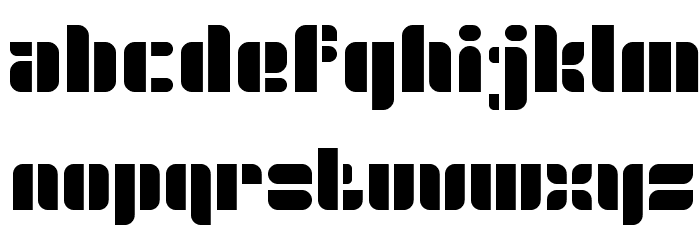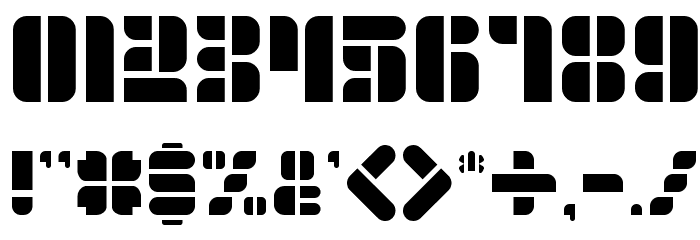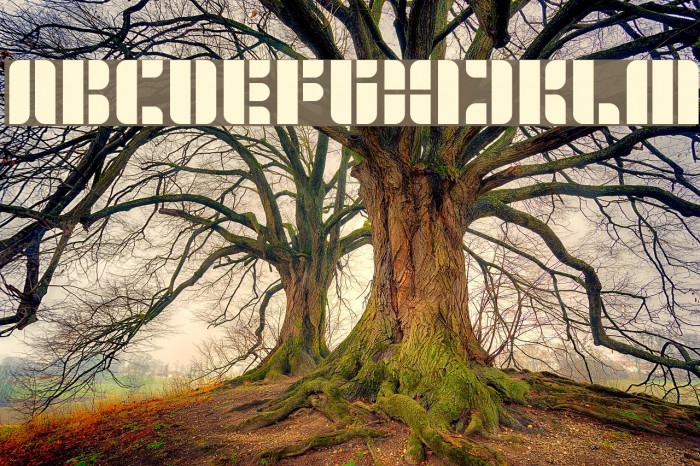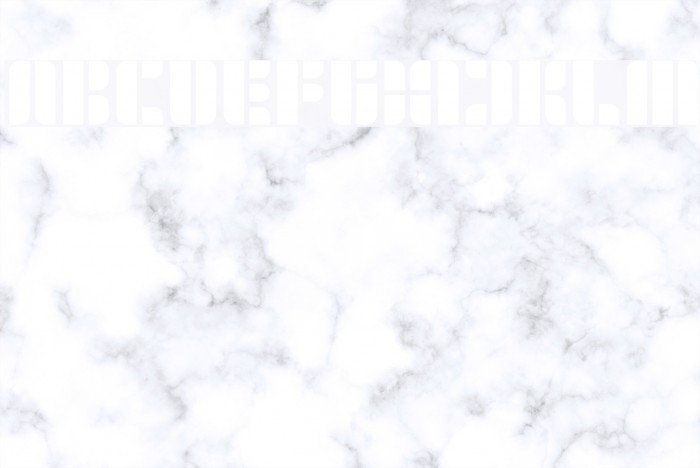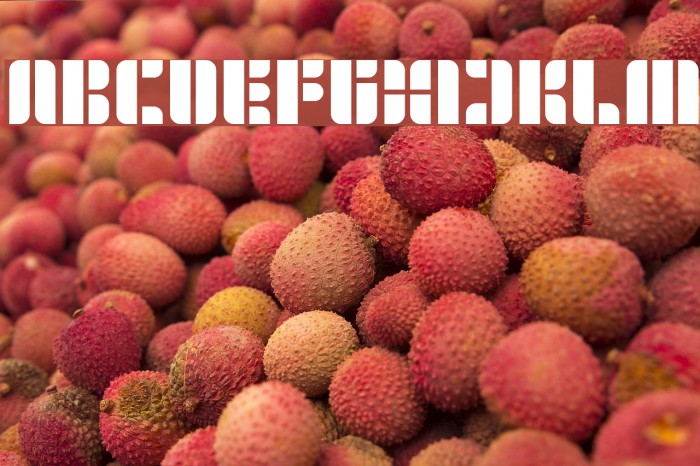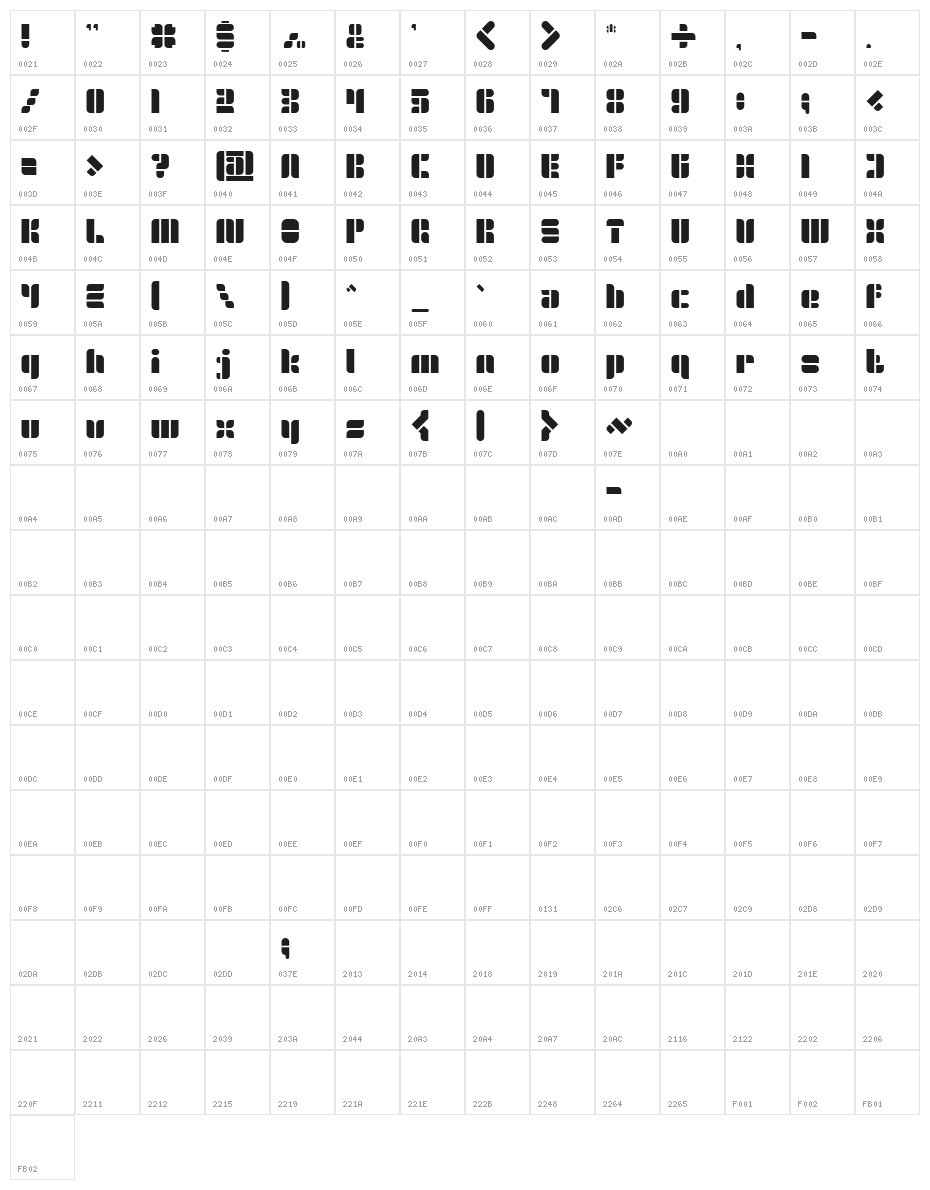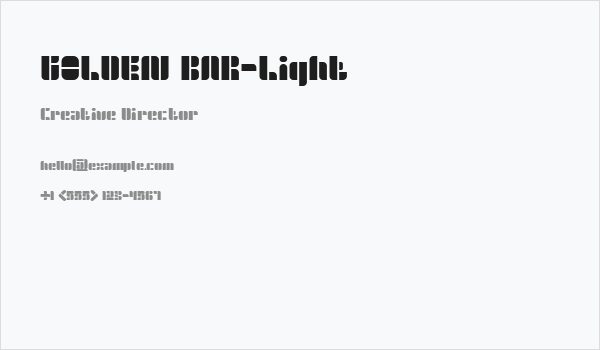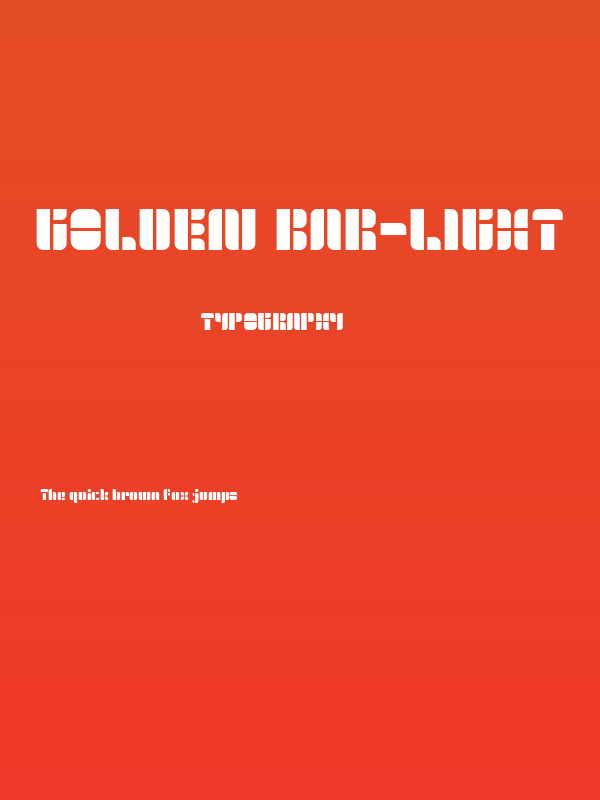
GOLDEN BAR-Light Font
This font features a bold, geometric design with a strong emphasis on modular shapes. Each character is constructed from a series of thick, rounded rectangles and squares, creating a cohesive and uniform appearance. The font has a futuristic and industrial feel, with its blocky, stencil-like forms that suggest a sense of strength and stability. The characters are evenly spaced, maintaining a consistent rhythm across the text. This style is particularly well-suited for display purposes, where its unique and striking appearance can be fully appreciated.
A bold, geometric font with a futuristic, industrial design.
- Proposed Projects: Ideal for branding, posters, signage, and any project requiring a modern, eye-catching typeface.